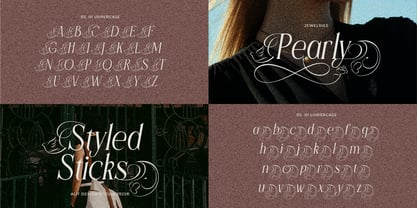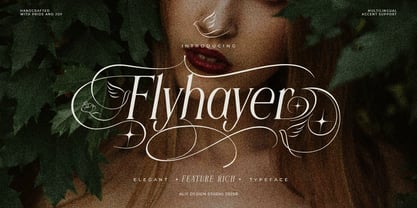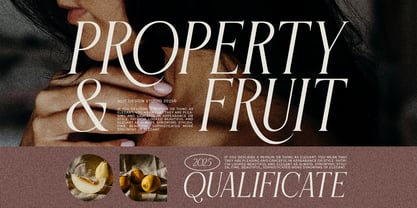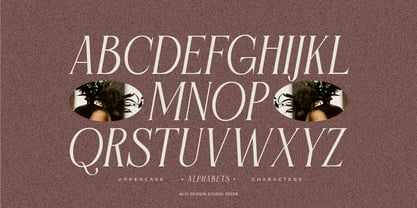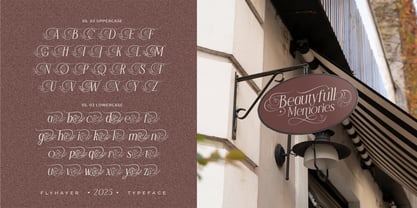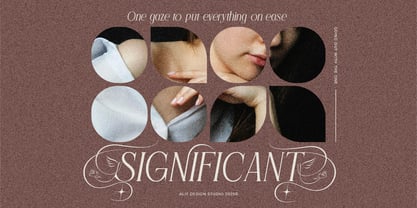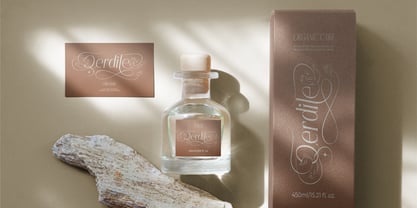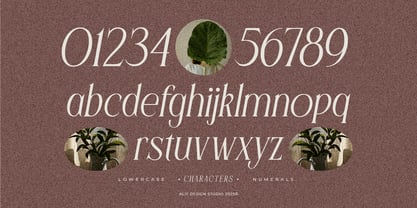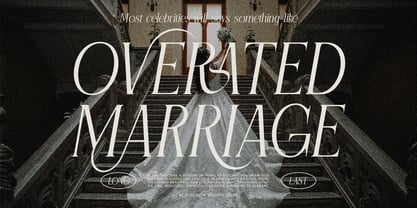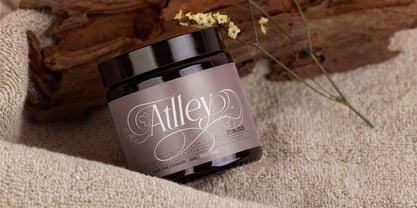
Flyhayer
by Alit Design
The Flyhayer Font Family was designed by Alit Suarnegara and published by Alit Design. Flyhayer contains 1 styles.
Flyhayer Typeface: Where Elegance Meets Enchantment
Discover Flyhayer Typeface, a breathtaking serif font that weaves a tapestry of romance, grace, and exquisite detail. More than just a collection of letters, Flyhayer is an artistic journey, meticulously handcrafted to infuse your designs with unparalleled beauty and charm.
Inspired by the ethereal dance of nature and the timeless allure of classic elegance, Flyhayer features an array of stunning swashes that truly set it apart. Watch your text come alive with the delicate flight of a peace bird, the whimsical flutter of butterflies, the soft bloom of flowers, and the magical twinkle of sparkling accents. Each character is thoughtfully designed, offering a unique blend of sophisticated serifs and flowing, decorative elements.
Perfectly suited for wedding invitations, luxury branding, romantic editorial layouts, elegant packaging, and any project desiring a touch of bespoke artistry, Flyhayer Typeface includes versatile features like stylistic alternates (SS.01-SS.07) and comprehensive multilingual accent support. This ensures your message not only looks stunning but also reaches a global audience with grace.
Let Flyhayer elevate your creative vision, transforming simple words into captivating masterpieces that whisper tales of beauty and dreams.
Key Features:
• Romantic Serif Style: Timeless elegance with a modern twist.
• Feature-Rich Swashes: Adorn your text with peace birds, butterflies, delicate flowers, and sparkling accents.
• Stylistic Alternates (SS.01-SS.07): Unleash creative variations for unique designs.
• Multilingual Accent Support: Global reach with beautiful typography.
• Handcrafted Perfection: Designed with pride and joy for exquisite results.
• Ideal for invitations, branding, luxury goods, editorial, and more.